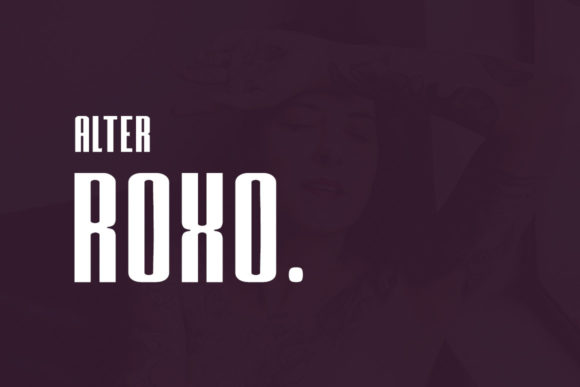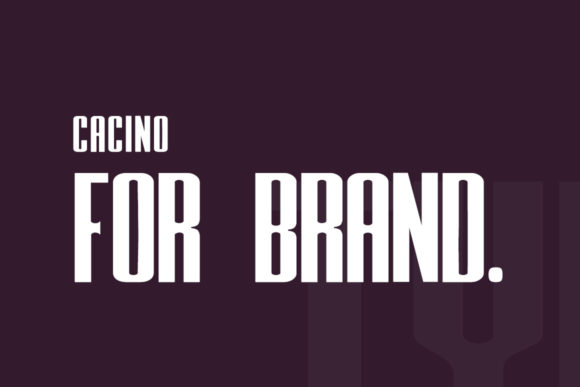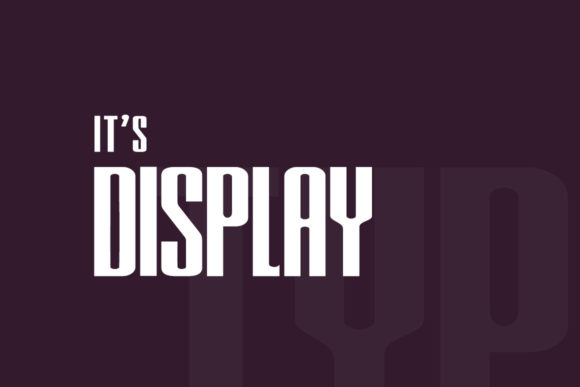
Cacino Font: The Ultimate Modern Display Font for Designers and Crafters
In the world of typography, fonts play a crucial role in conveying messages, expressing emotions, and creating visual identities. For designers and crafters, finding the perfect font can be a daunting task, especially when it comes to creating stunning visual content. This is where Cacino Font comes into play – a modern display font that embodies minimalism and versatility. In this article, we’ll dive into the world of Cacino Font, exploring its features, benefits, and uses.
What is Cacino Font?
Cacino Font is a modern display font designed to make a statement. With its clean lines, elegant curves, and minimalist approach, it’s perfect for a wide range of design projects. Whether you’re working on a logo, headline, paragraph, note, or advertisement, Cacino Font is an excellent choice. Its simplicity and sophistication make it an ideal font for designers and crafters looking to add a touch of modernity to their work.
Key Features of Cacino Font
- Minimalist Design: Cacino Font boasts a minimalist design that ensures your message takes center stage. Its clean lines and simple shapes make it perfect for creating visually appealing content.
- Versatility: This font is incredibly versatile, making it suitable for various design projects, from headlines and paragraphs to notes and advertisements.
- Modern Aesthetic: Cacino Font has a distinctly modern aesthetic that will elevate your design game. Its sleek and sophisticated look is sure to impress.
- Ease of Use: This font is easy to read and works well in both digital and print formats, making it a great choice for designers and crafters.
Benefits of Using Cacino Font
So, why should you choose Cacino Font for your design projects? Here are some benefits that make it an excellent choice:
- Enhance Readability: Cacino Font’s clear and concise design ensures that your message is easily readable, even at small font sizes.
- Boost Visual Appeal: With its modern aesthetic and elegant curves, Cacino Font adds a touch of sophistication to your design, making it more visually appealing.
- Save Time: This font is designed to work seamlessly across various design platforms, saving you time and effort in the design process.
- Stand Out: Cacino Font’s unique design helps your content stand out from the crowd, making it perfect for designers and crafters looking to create stunning visual content.
Uses of Cacino Font
Cacino Font is an incredibly versatile font that can be used in a wide range of design projects, including:
- Headlines and Titles: Use Cacino Font to create stunning headlines and titles that grab attention.
- Paragraphs and Body Text: This font works well for paragraphs and body text, making it perfect for blog posts, articles, and website content.
- Notes and Quotes: Add a touch of elegance to your notes and quotes with Cacino Font.
- Advertisements and Marketing Materials: Use Cacino Font to create visually appealing advertisements and marketing materials that stand out.
| Font Name | Cacino Font |
| Author | BeeType |
In conclusion, Cacino Font is a modern display font that embodies minimalism and versatility. With its clean lines, elegant curves, and modern aesthetic, it’s perfect for designers and crafters looking to create stunning visual content. Whether you’re working on a logo, headline, paragraph, note, or advertisement, Cacino Font is an excellent choice. Its ease of use, readability, and visual appeal make it a great addition to any design project.